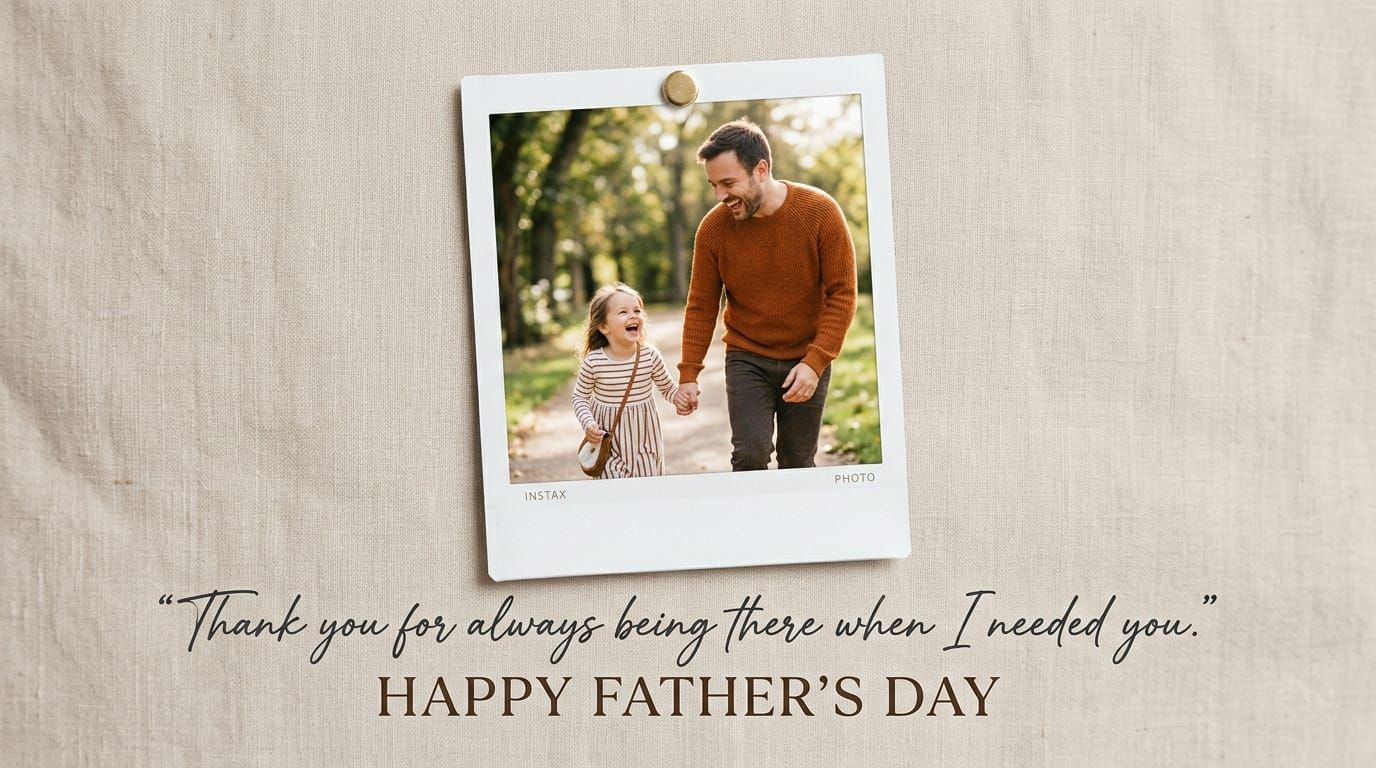
30 Fathers Day Quotes That Express Love and Respect
Celebrating Father’s Day becomes more meaningful when you share heartfelt fathers day quotes that express love and appreciation. Whether you are writing a card, creating social media content, or designing a poster, the right fathers day quotes can capture emotions that are often hard to say.
In this guide, you’ll find 30 inspiring fathers day quotes along with creative design ideas and font pairings inspired by DM Letter Studio. These fathers day quotes are perfect for cards, gifts, and visual content that honors fatherhood.
Why Fathers Day Quotes Matter for Meaningful Messages
Fathers day messages helps you communicate gratitude and respect in a simple yet powerful way.
Benefits of fathers day wishes:
• Express appreciation clearly
• Strengthen emotional connection
• Make cards and messages more personal
Thoughtful fathers day wishes can turn a simple message into something memorable.
30 Fathers Day Quotes That Show Love and Appreciation
Here are 30 meaningful fathers day quotes you can use:
1. “A father’s love is quiet, but it lasts forever.”
2. “Dad, your guidance shaped who I am today.”
3. “A father is a child’s first hero.”
4. “Your strength and kindness inspire me every day.”
5. “Thank you for always being there when I needed you.”
6. “A great dad makes life feel safe and strong.”
7. “Your support means everything to me.”
8. “Fathers teach us how to stand tall.”
9. “Dad, you are my role model and my guide.”
10. “Your love is the foundation of our family.”
11. “A father’s care never fades.”
12. “Thank you for your patience and wisdom.”
13. “Dad, you make life better in every way.”
14. “Strong fathers build strong families.”
15. “Your sacrifices never go unnoticed.”
16. “A father’s presence is a gift.”
17. “You showed me what hard work means.”
18. “Dad, your love is my strength.”
19. “You are the heart of our home.”
20. “Thank you for always believing in me.”
21. “A father’s love is steady and true.”
22. “You are my greatest supporter.”
23. “Dad, your lessons stay with me forever.”
24. “Your kindness defines you.”
25. “You lead with strength and love.”
26. “A father’s guidance shapes the future.”
27. “You are more than a dad, you are my hero.”
28. “Thank you for your endless support.”
29. “Dad, you are my inspiration.”
30. “Your love makes everything better.”
These fathers day wishes are simple, heartfelt, and perfect for many uses.
Fathers Day Quotes for Cards, Messages, and Social Content
Creators and families can use fathers day wishes across different formats.
Use fathers day wishes for:
• Greeting cards
• Instagram posts
• Posters and prints
• Personalized gifts
Combining fathers day wishes with strong typography makes your message more impactful.
Font Pairing Ideas for Fathers Day Quotes
Typography plays a big role in presenting fathers day wishes beautifully. Here are curated font pairings based on DM Letter Studio styles:
1. Script + Clean Sans (Emotional and Elegant)
Primary Font: Bambang Signature, Beauty Signature
Secondary Font: ROSA, Autumn Sunset
Best for heartfelt and elegant fathers day wishes in cards.
2. Serif + Minimal Sans (Classic and Respectful)
Primary Font: Fleur Bleue, Omarta
Secondary Font: Playwrite, Anya Slab
Perfect for timeless and respectful fathers day wishes.
3. Handwritten + Neutral Sans (Warm and Personal)
Primary Font: Sparkling Bright, Hellena
Secondary Font: Linova, Loopela Font
Great for personal and emotional fathers day wishes.
4. Bold Display + Clean Sans (Strong and Impactful)
Primary Font: Summer Heaven, Beach Crush
Secondary Font: Melvick Font, Novaline
Ideal for bold and eye-catching fathers day wishes.